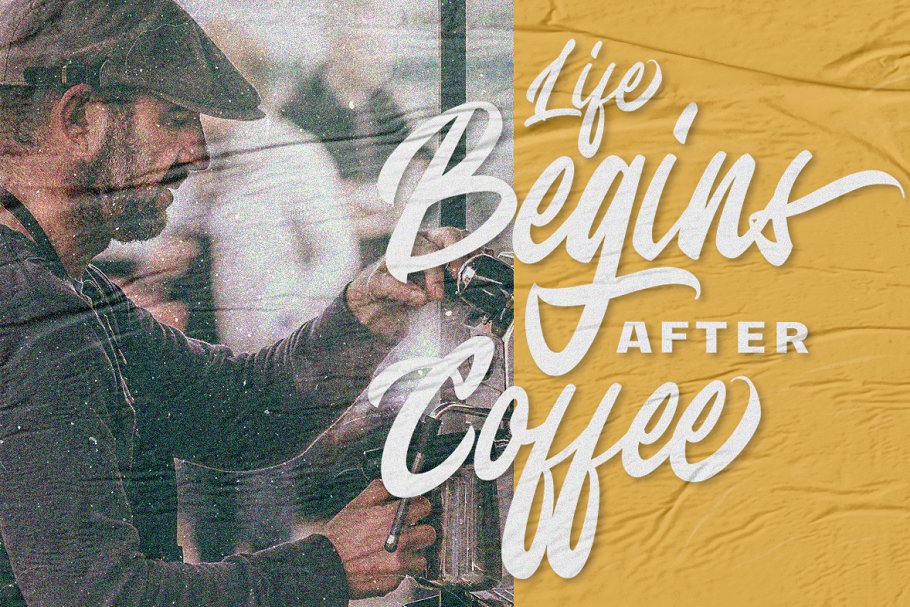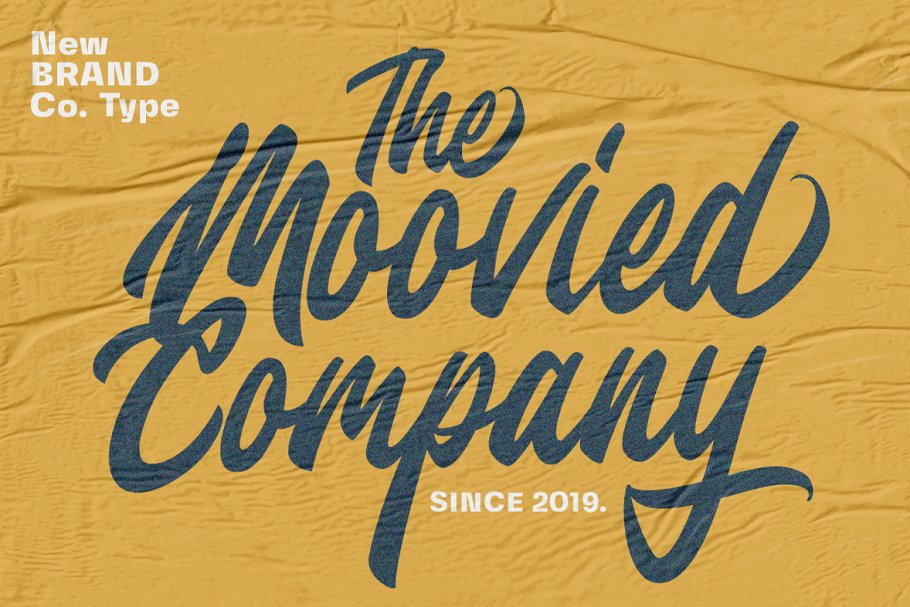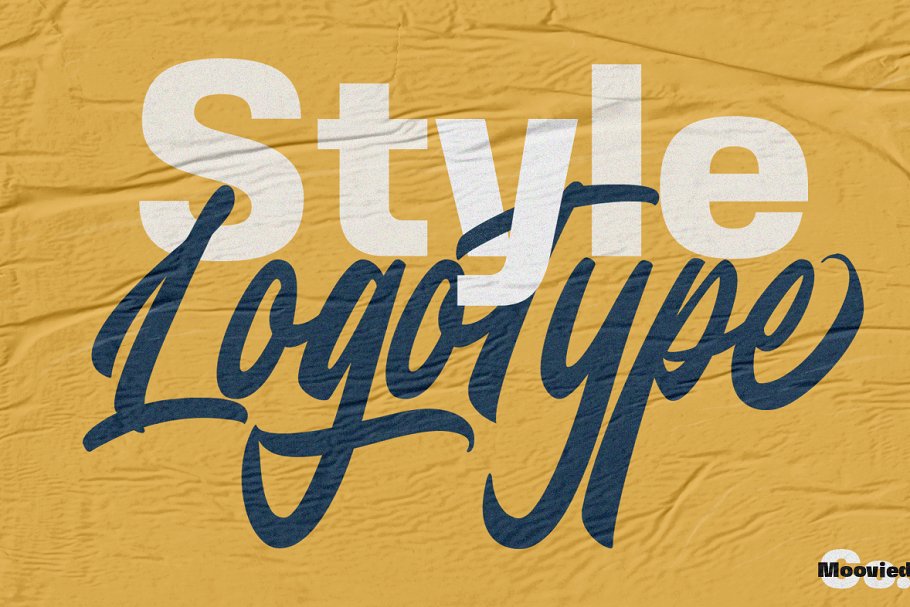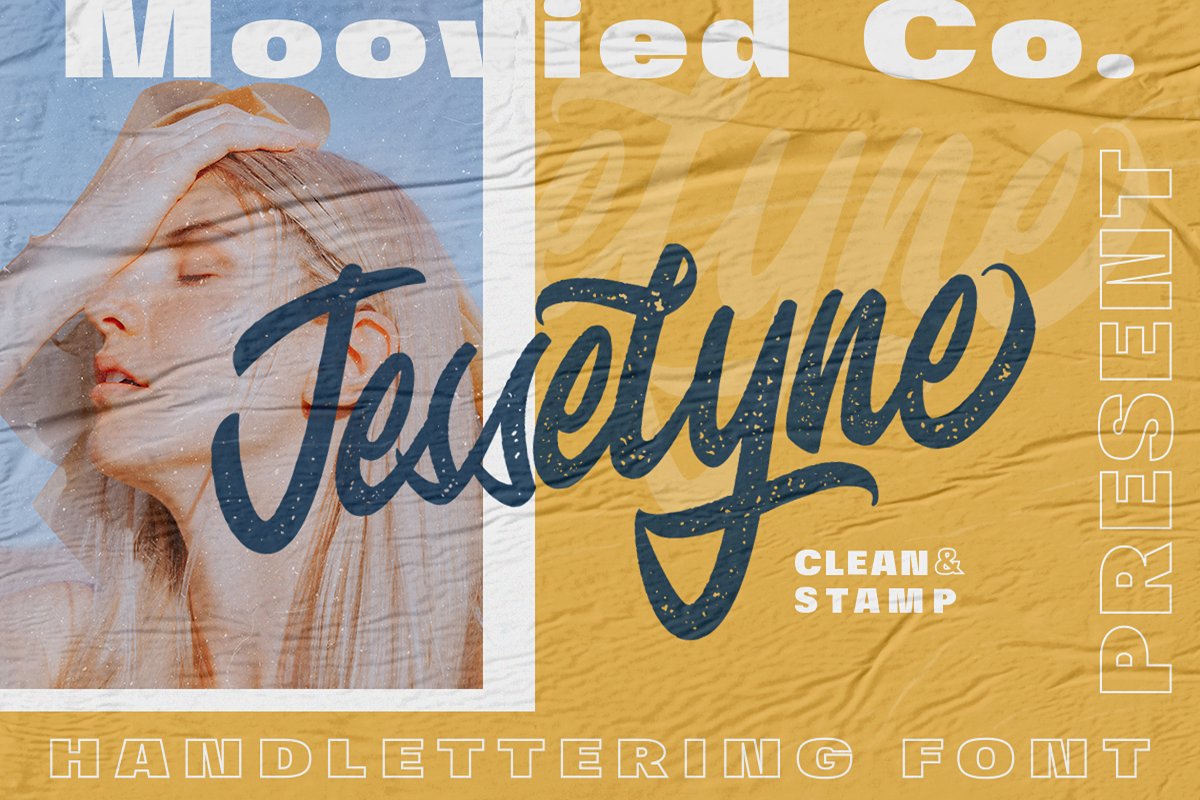
Jesselyne Script Font
Jesselyne Script Demo Font
Hello world..!! This is a brush script family of Regular and Bold weight and a set frisky caps. This font will perfect for many different project. Introducing Jesselyne Font. It is designed and shared by Moovied Co.. Jesselyne Script Font Inspired by urban, streetwear and vintage made with love handlettering style. Ideal for branding, logos, handwriting quotes, product packaging, headers, posters, merchandise, social media Books / Cover titles, special events, etc.